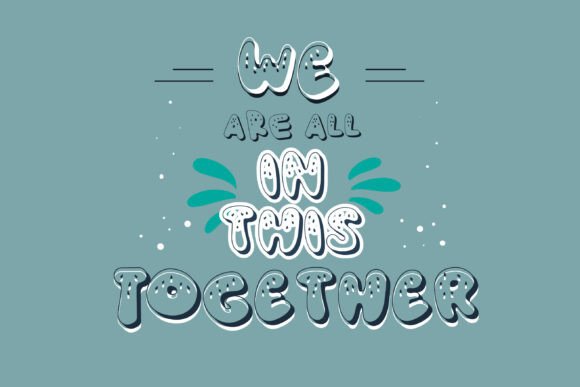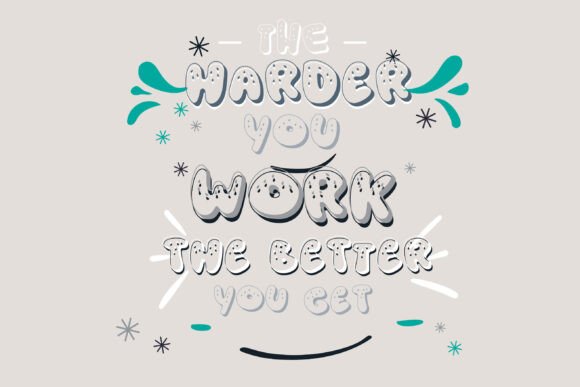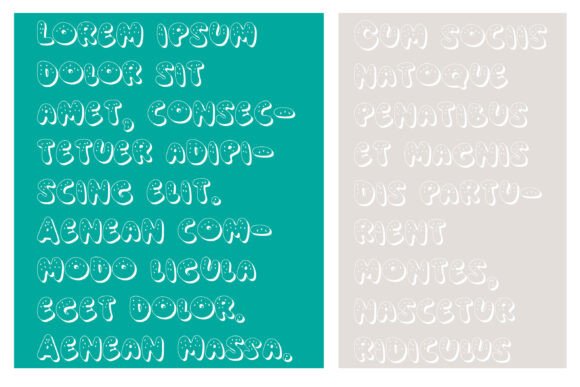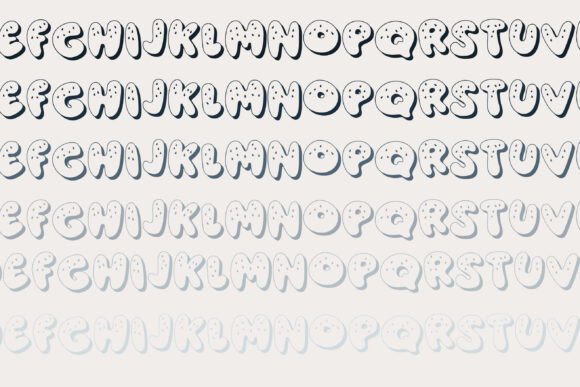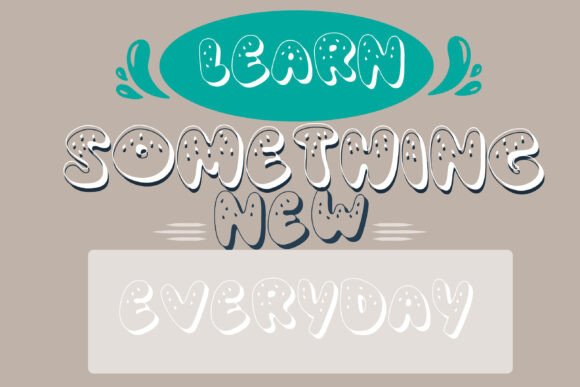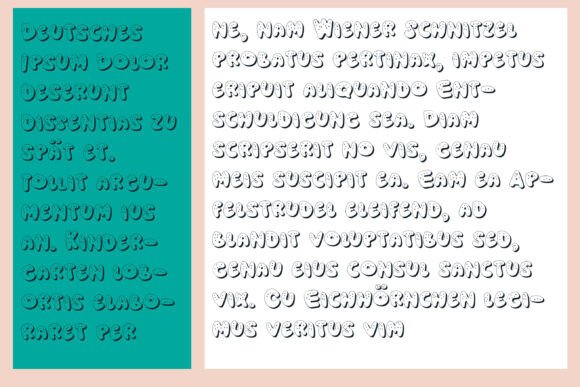
The Sweet Charm of Blue Melon Font: A Designer’s Delight
I still remember the time I was working on a project for a client’s baby shower invitation. I had all the design elements in place, but I just couldn’t find the perfect font to tie everything together. That’s when I stumbled upon the Blue Melon Font, and it was love at first sight! ✨ The soft, rounded, and crafty vibe of this hand-crafted font instantly captured the playful and whimsical feel of the event. In this article, I’ll share my experience with Blue Melon Font, its features, and how to make the most of it in your designs.
An Honest Review of Blue Melon Font
- 💕 The unique melon seed details throughout the font add a touch of playfulness and whimsy.
- ✅ The soft, rounded edges give it a friendly and approachable feel.
- 🎨 The hand-crafted look makes it perfect for designs that require a personal touch.
- 🖌️ It’s versatile and can be used for both formal and informal projects.
While Blue Melon Font is a beautiful addition to any design, there are a few things to keep in mind: 🤔
- ⚠️ Some characters may appear a bit inconsistent in size or shape, which can be a minor distraction.
- ⚠️ The font may not be suitable for very formal or corporate designs, as it has a distinctly playful feel.
A Practical Guide to Using Blue Melon Font
- Experiment with the font’s OpenType features, such as ligatures and stylistic alternates, to add more personality to your text.
- Explore the font’s glyphs and stylistic alternates to add more visual interest to your design.
The Story Behind Blue Melon Font
The Blue Melon Font was designed with the intention of capturing the playful and carefree spirit of a summer day. The designer, inspired by the simple joys of childhood, aimed to create a font that would evoke feelings of happiness and warmth. The result is a beautiful, hand-crafted font that’s perfect for designs that require a personal touch.
Q: What is a hand-crafted font?
A: A hand-crafted font is a font that is designed to look like it was written by hand. It is often used for invitations, greeting cards, and other items.
Q: Is Blue Melon Font suitable for formal designs?
A: While Blue Melon Font can be used for formal designs, it may not be the best choice due to its playful and whimsical feel. It’s better suited for informal or creative projects.